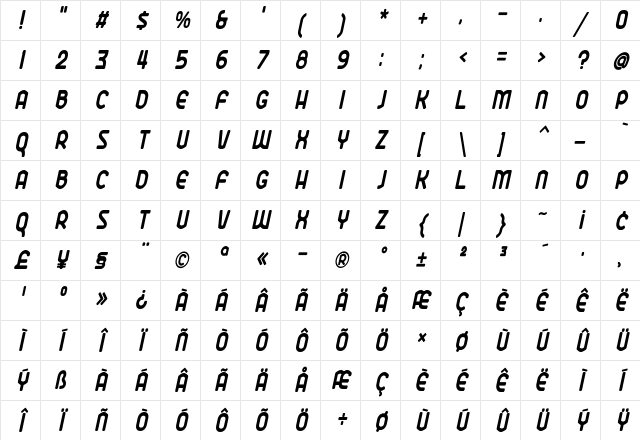
Complete Ekela Round Bold Condensed Italic glyph index. Displaying only characters natively supported by Ekela Round Bold Condensed Italic font.
Ekela softens its letterforms with rounded terminals, giving it an approachable, friendly quality that works well in consumer-facing and digital contexts. The slanted form adds forward momentum and visual energy. Its bold stroke weight gives it real presence on the page.
Font Pairing: Pairs well with a rounded or humanist sans for body copy, maintaining the friendly tone without relying on Ekela to carry extended reading.
Pro Tip: Use Ekela for UI elements, app interfaces, and anywhere a friendly, approachable tone needs to be maintained without sacrificing clarity.